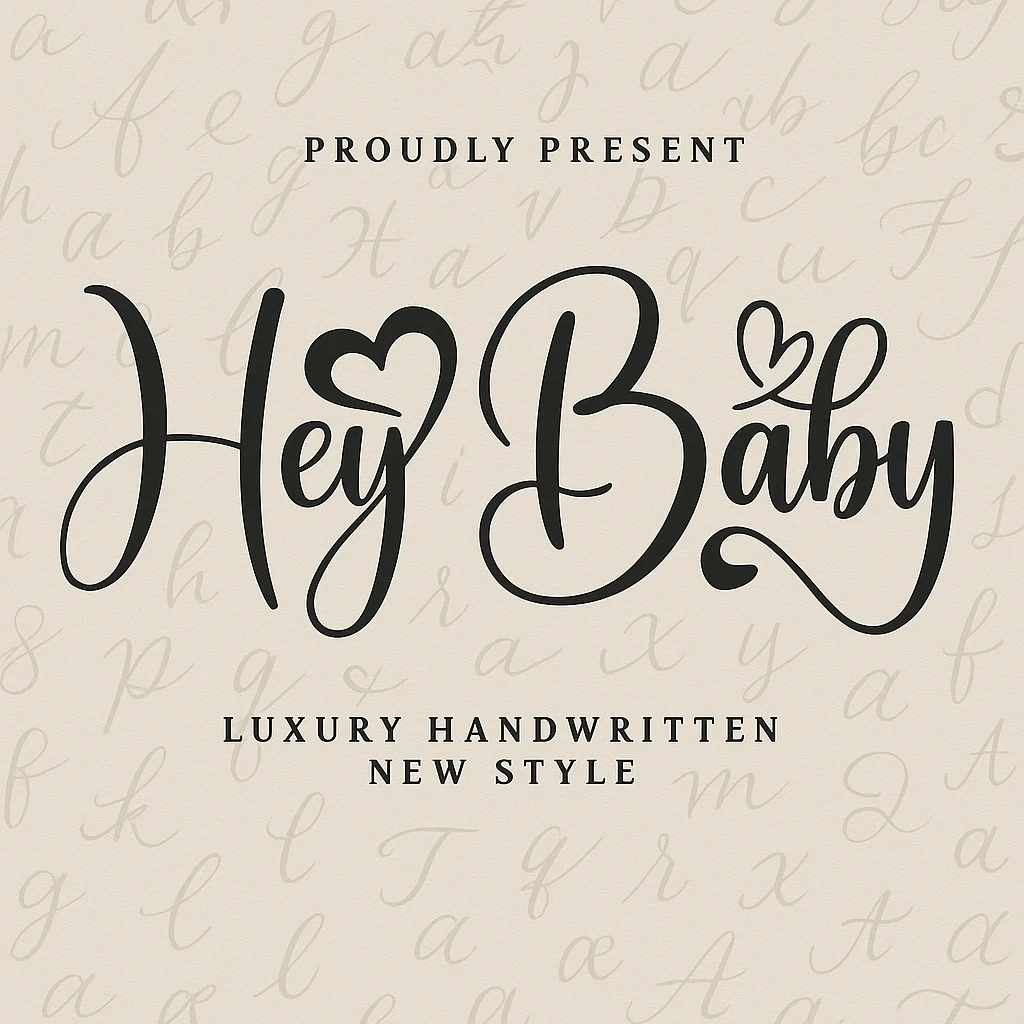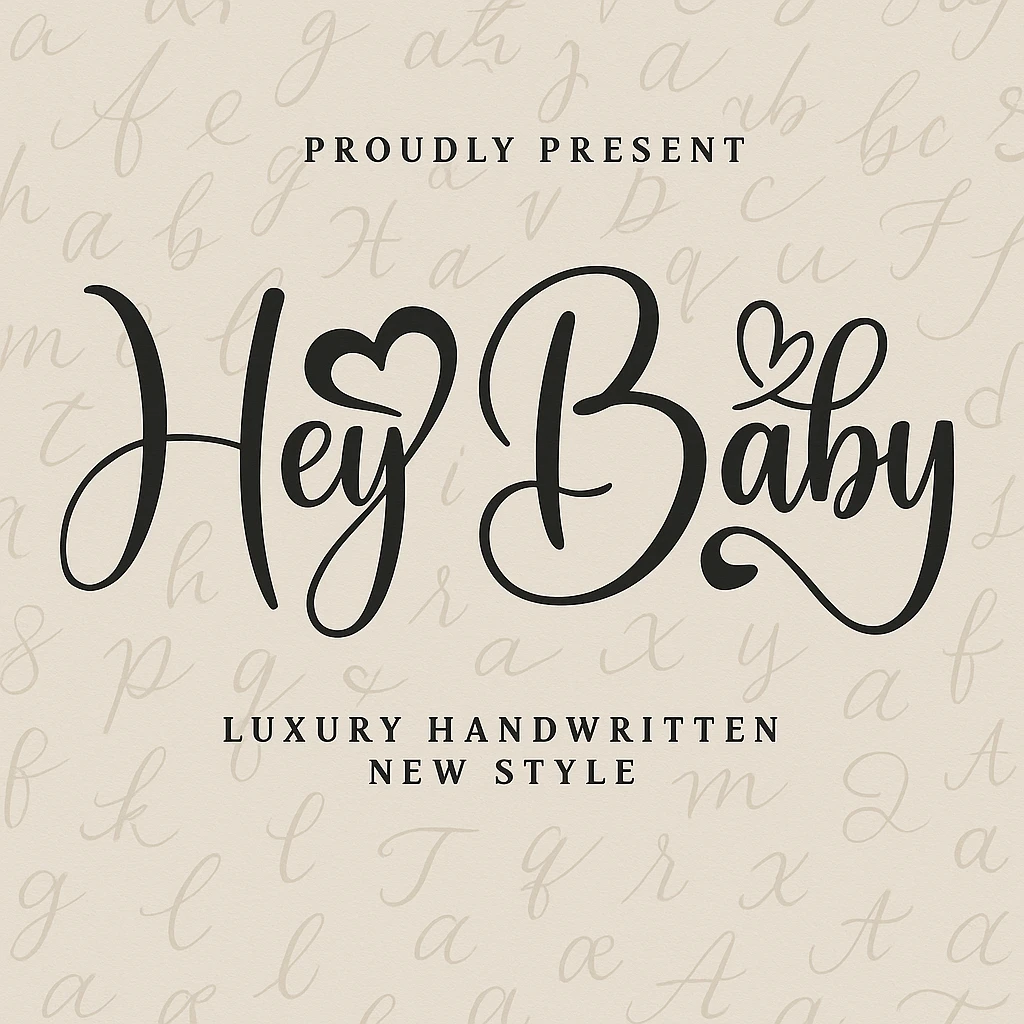
Hey Baby is the kind of handwritten script font that instantly gives a design a softer, more personal feel. It blends modern calligraphy with relaxed handwritten strokes, so it doesn’t look overly formal or stiff like some script fonts tend to.
What stood out to me first was how smooth the lettering feels in larger titles and branding mockups. The curves are clean, the spacing feels balanced, and the swashes don’t get too distracting. Some handwritten fonts look beautiful in previews but become hard to read once you start using them in real projects. This one stays surprisingly readable, especially for invitations, feminine branding, and social media graphics.
It works especially well for:
- Wedding invitations
- Boutique logos
- Fashion branding
- Instagram quote posts
- Packaging designs
- Beauty product labels
- Signature-style headers
The font has that romantic handwritten look people usually search for when they want something elegant but still warm and approachable. I could also see it fitting nicely on candle packaging, skincare labels, or Pinterest-style templates where softer typography tends to perform better visually.